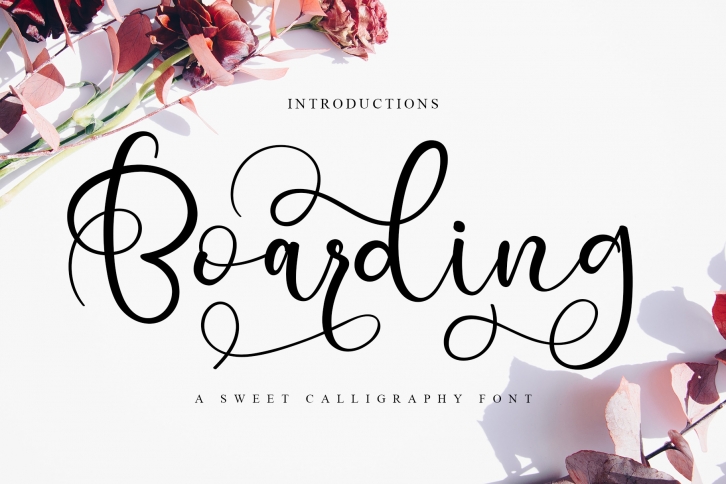
Boarding is a romantic and sweet modern calligraphy typeface with characters dancing along the baseline. This font is PUA encoded which means you can access all the amazing glyphs and ligatures with ease!